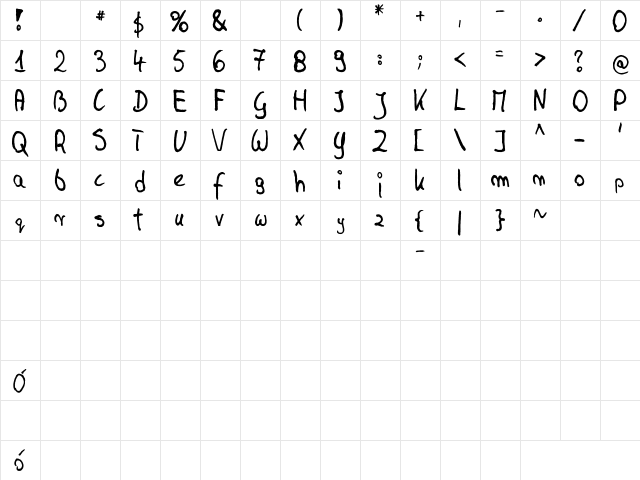
Galileo Font Regular
Design Context for Galileo Font Typeface
Galileo Font takes a measured approach to typography — its balanced proportions and neutral character make it a reliable workhorse for both digital and print work.